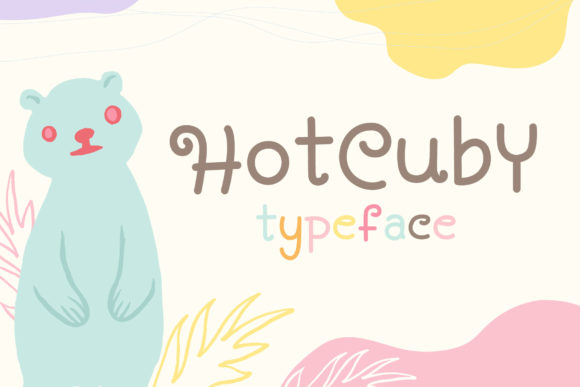
**Introducing Hot Cuby: The Whimsical Display Font That Will Make Your Designs Pop!**
In a world of ordinary fonts, Hot Cuby emerges as a breath of fresh air, an enchanting display font that sparks creativity and adds a touch of whimsy to your design projects. Its unique blend of classic elegance and friendly charm elevates your designs to new heights, leaving a lasting impression on all who behold it.
**Unleash Your Creativity with Limitless Possibilities:**
With Hot Cuby as your artistic ally, the creative possibilities are endless. From branding and headings to wedding designs, invitations, signatures, logos, and labels, this font effortlessly adapts to a myriad of projects, adding a touch of magic to each one. Its versatility knows no bounds, making it an essential tool for designers seeking to make a statement.
**Step into a World of Timeless Elegance and Modern Charm:**
Hot Cuby is a font that transcends time, effortlessly blending the timeless elegance of classic typography with a modern, playful twist. Its meticulously crafted characters exude sophistication and refinement, while maintaining a sense of approachability and warmth. Whether you're designing for a timeless brand identity or a whimsical personal project, Hot Cuby delivers an unforgettable impact.
**Elevate Your Designs to the Highest Level:**
With Hot Cuby at your fingertips, mediocrity becomes a thing of the past. This font has the power to transform ordinary designs into extraordinary creations, capturing the attention of your audience and leaving a lasting impression. It elevates your projects to the highest level, making them stand out from the crowd and leaving an indelible mark on the minds of those who encounter them.
**Experience the Magic of Hot Cuby Today:**